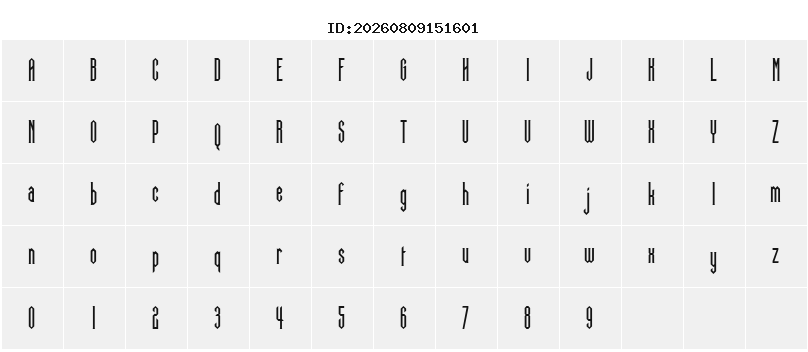
• Font Name: Paschico
Paschico.ttf is a modern, elegant sans-serif font designed for ultimate readability and visual harmony. Perfect for branding, headlines, web design, and print materials.